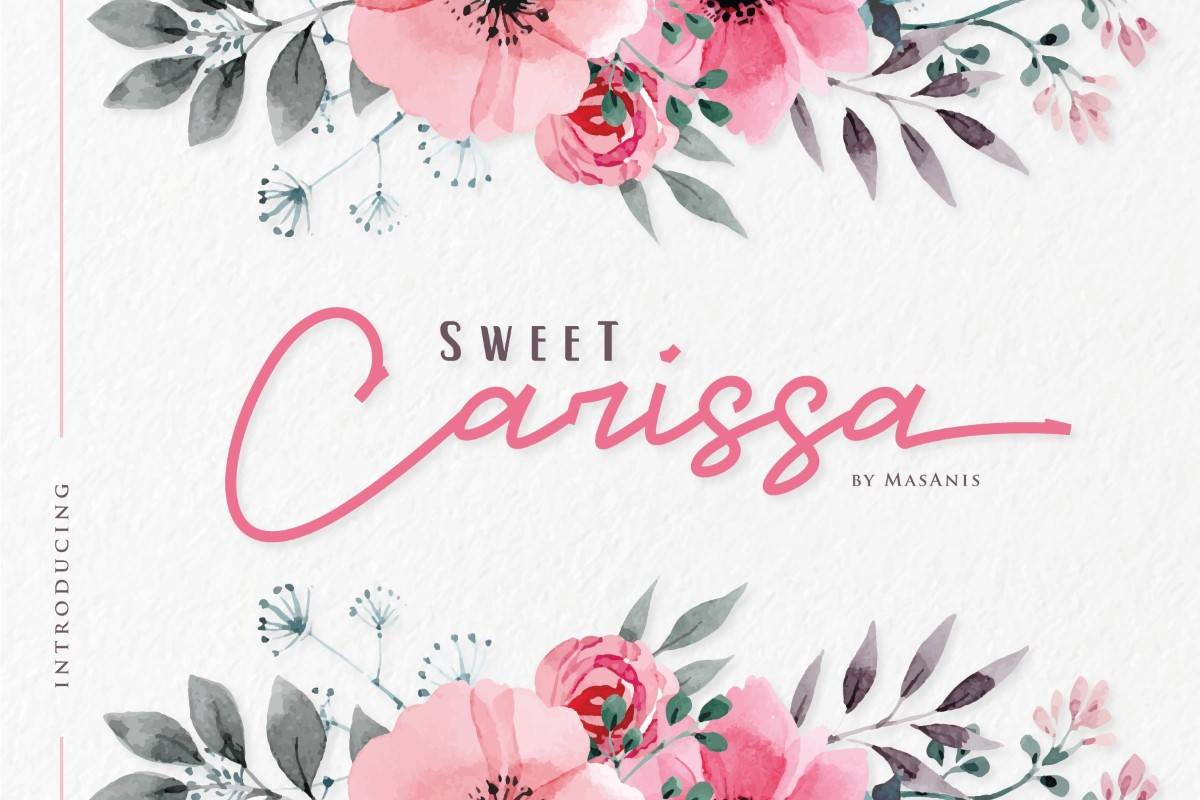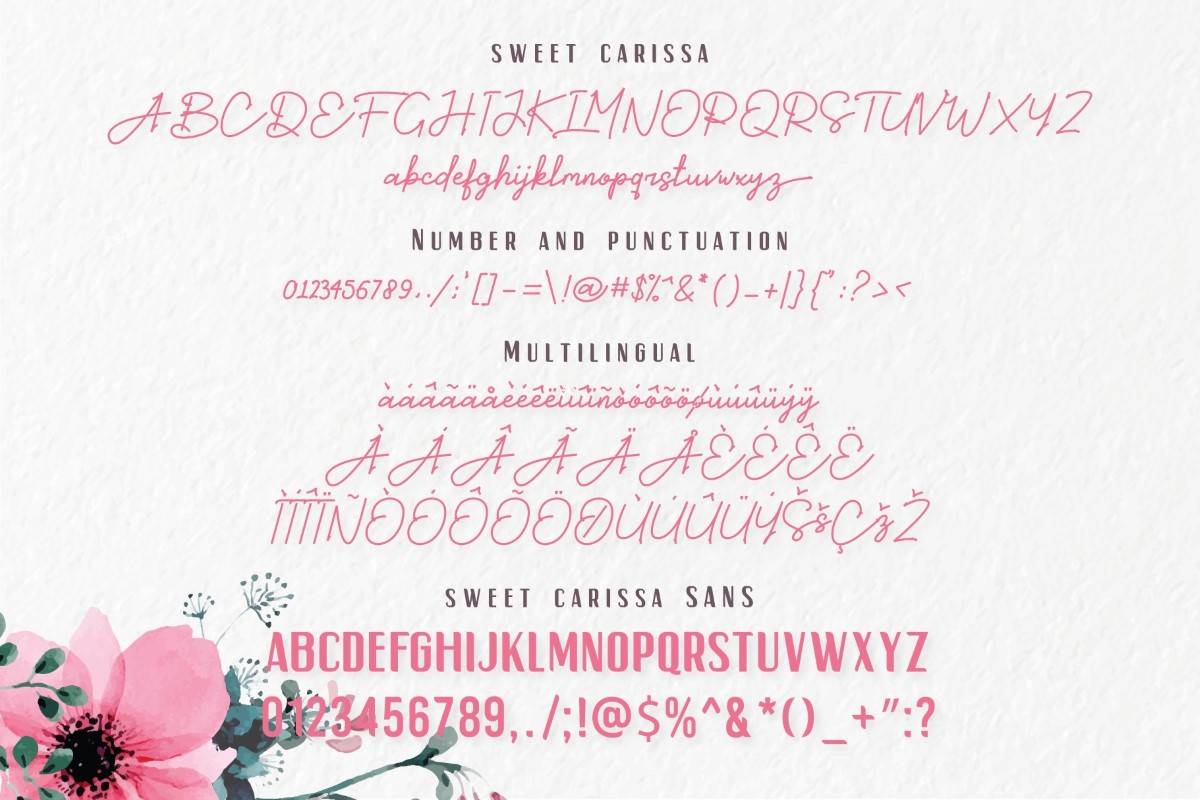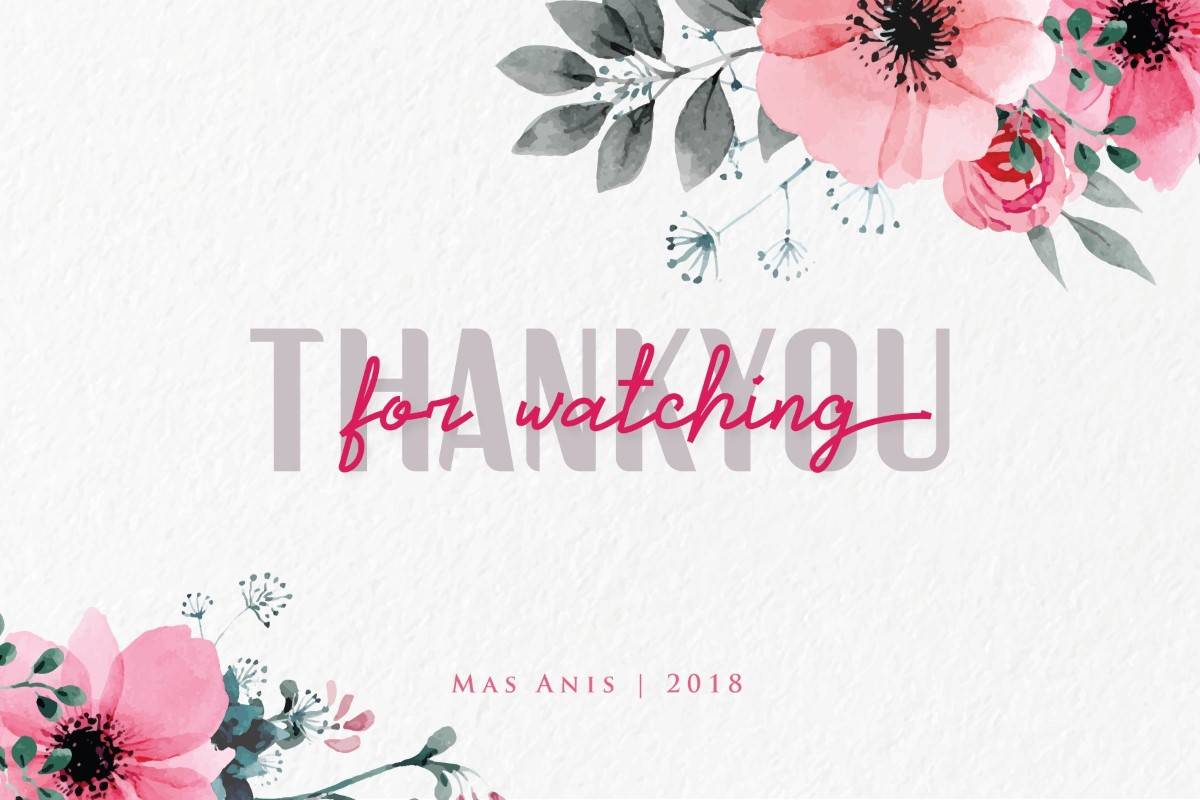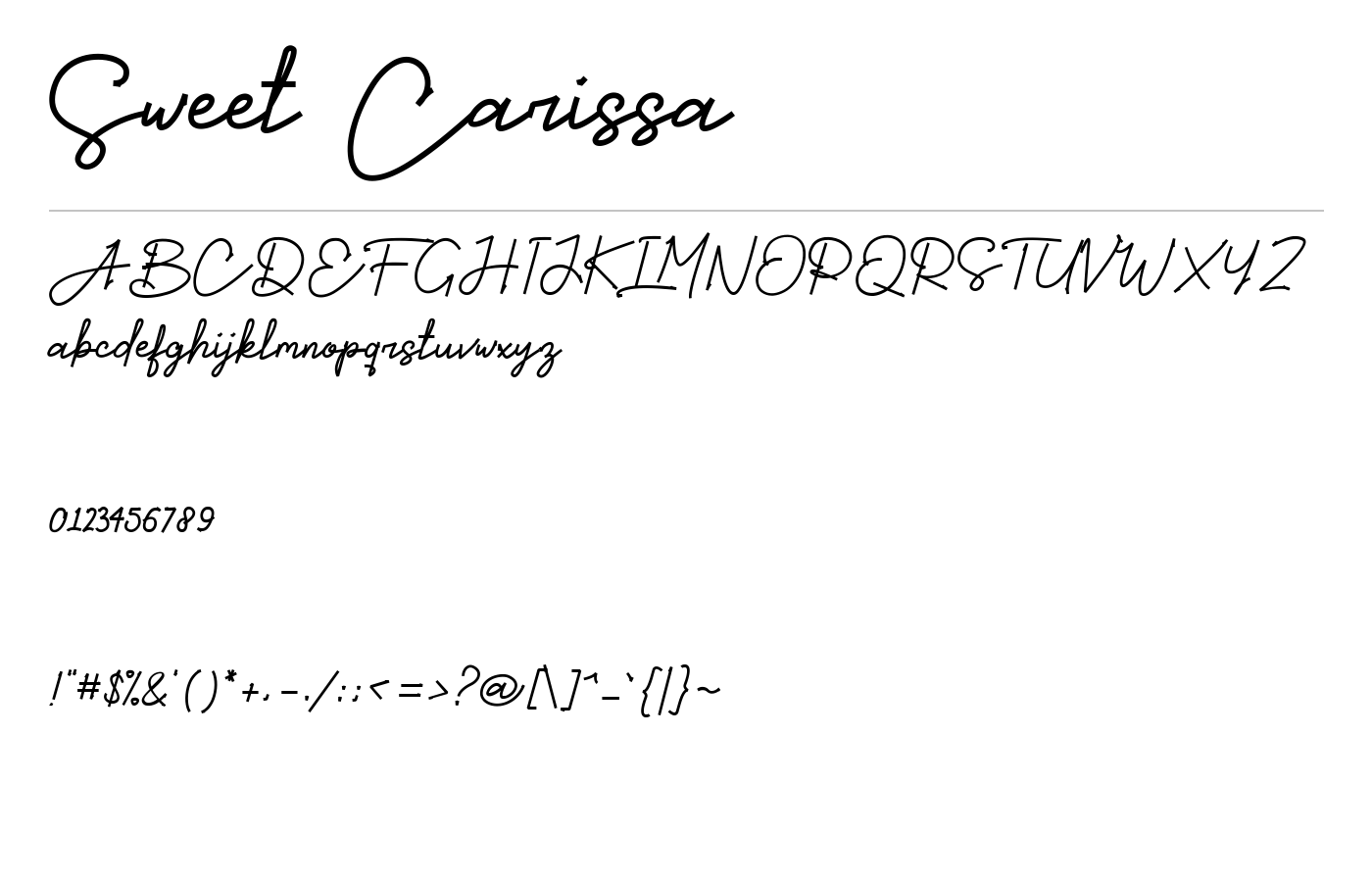
Sweet Carissa is a delicate, handwritten script font that features elegant, flowing letterforms with a casual yet refined feel. Its light weight, medium x-height, and smooth curves make it ideal for adding a personal, artistic touch to invitations, branding, and stylish editorial designs where a warm and approachable tone is desired. This font shines best in applications that benefit from a handwritten, friendly look without sacrificing legibility or sophistication.
Sweet Carissa Font
About Sweet Carissa Font
| Font family | Sweet Carissa Font |